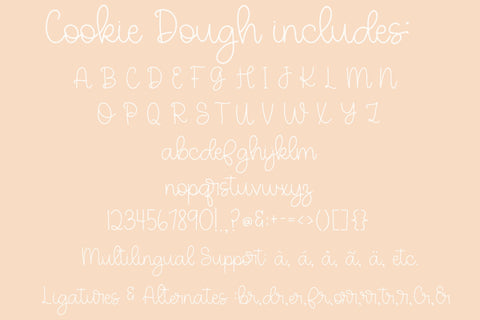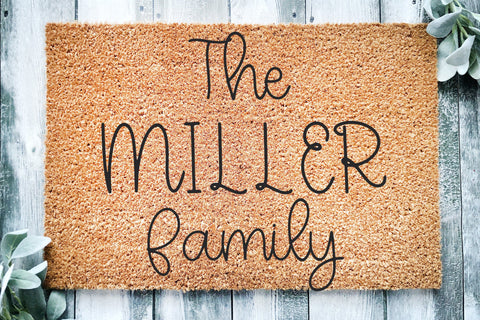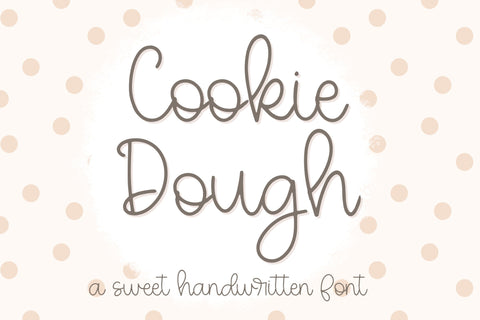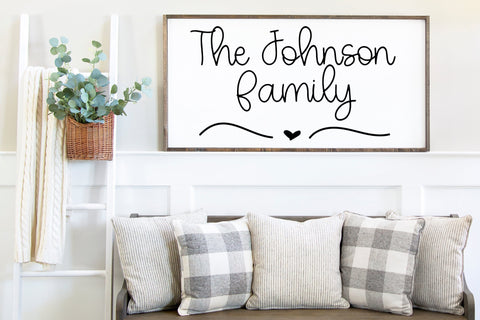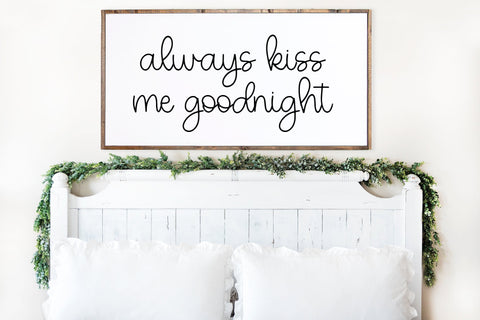
Cookie Dough, A Cute Handwritten Cursive Font
Introducing Cookie Dough, an adorable handwritten script, perfect for all your creative projects! Whether you're a Cricut enthusiast or simply looking for a charming cursive font, this handwritten gem is exactly what you need. With its elegant curves and smooth strokes, our cute script font brings a delightful touch to invitations, greeting cards, and personalized crafts.